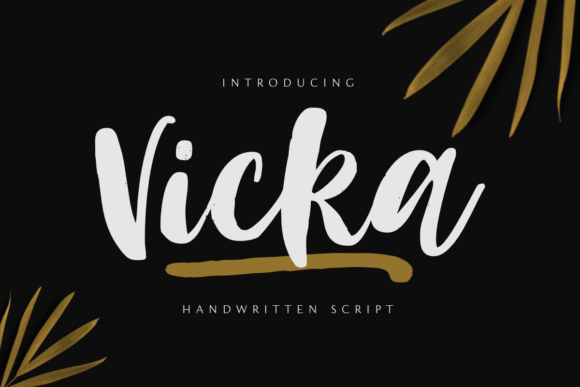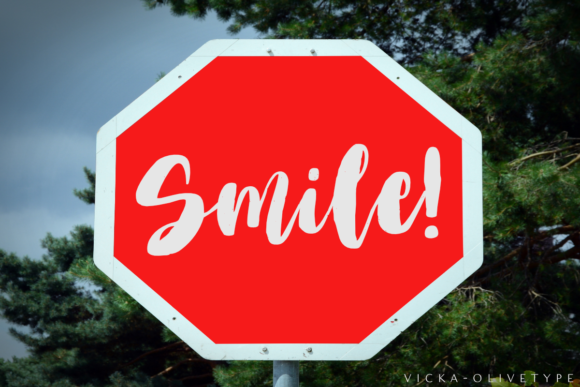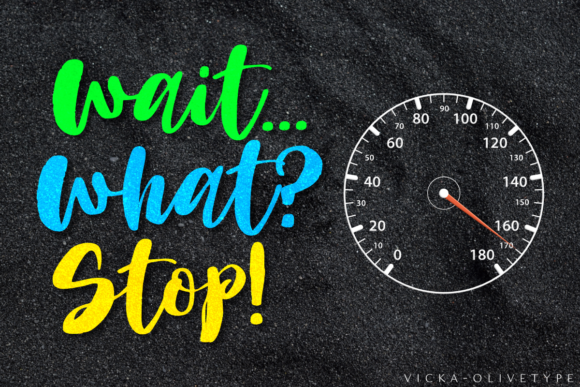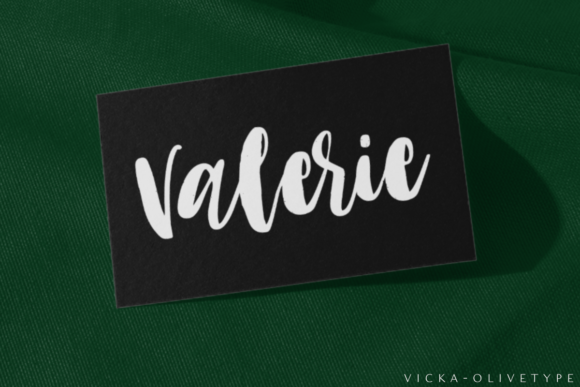
About Vicka Font
Vicka is a lovely and trendy handwritten font. It is the best choice for creating eye catching logos, branding and quotes. Every letter has a unique and beautiful touch, which will make your design come alive!